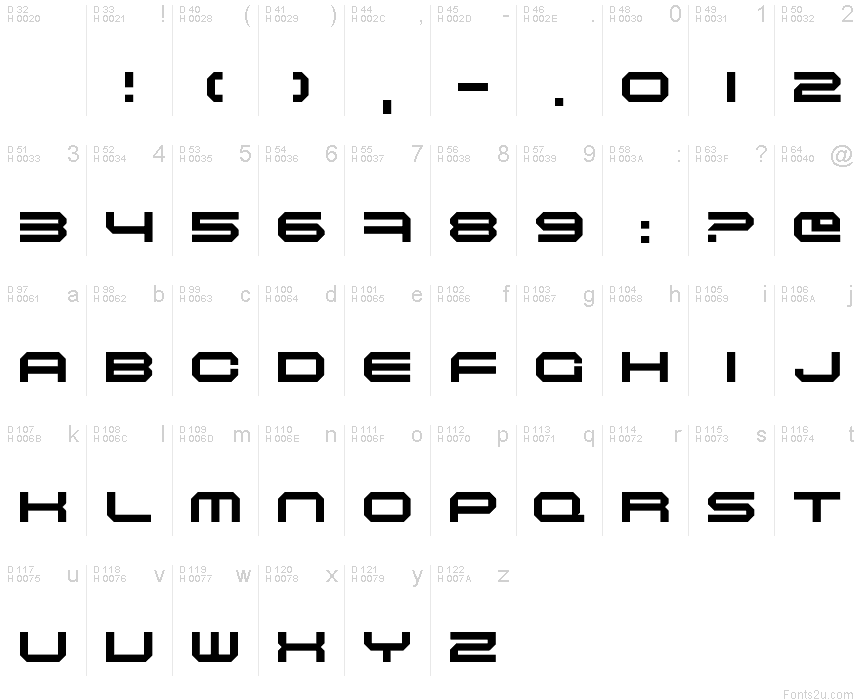
Maschinen Extended
Maschinen Extended font by Axel Pfaender is a free techno display font with wide, angular letterforms and hard-edged cuts that give it a clipped, industrial rhythm. The shapes feel squared off and mechanical, with sharp corners and narrow gaps that keep the whole face taut and graphic.
Maschinen Extended works well for posters, logo marks, music covers, game titles, and tech branding where a rigid, engineered tone fits the layout. This free font also suits headline treatments, event flyers, and interface labels because its extended structure holds a strong line without needing extra ornament.